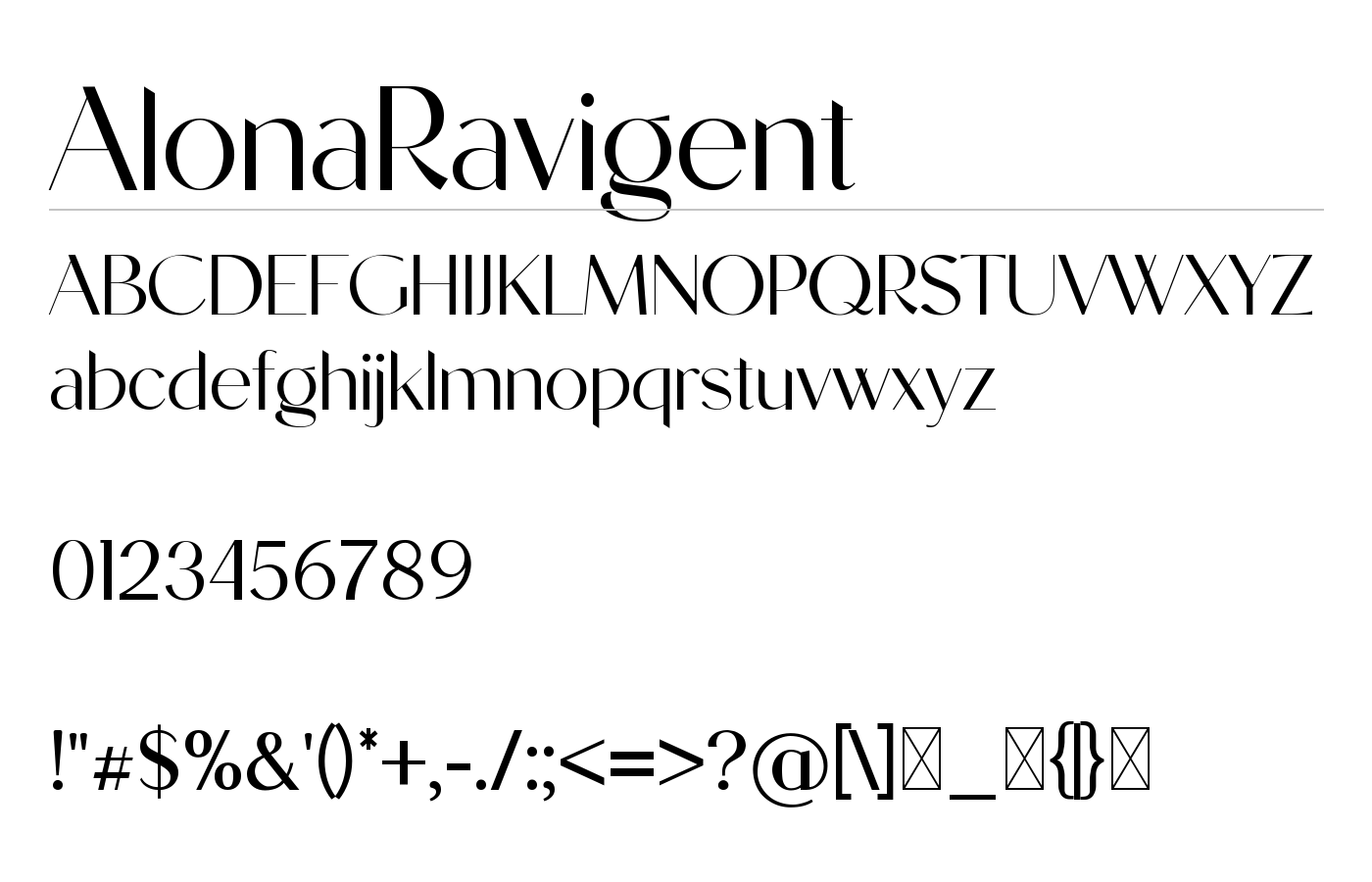
AlonaRavigent is a refined serif font with a stylish, modern twist characterized by high contrast between thick and thin strokes and delicate, sharp serifs. Its elegant letterforms feature unique details like single-story 'g' and distinctive angular terminals, making it ideal for luxury branding, editorial headlines, and sophisticated logos. This font brings a sense of grace and contemporary flair to designs that demand a fashionable yet serious tone.
AlonaRavigent Font